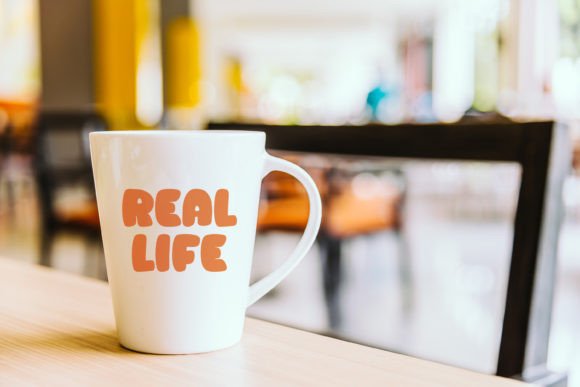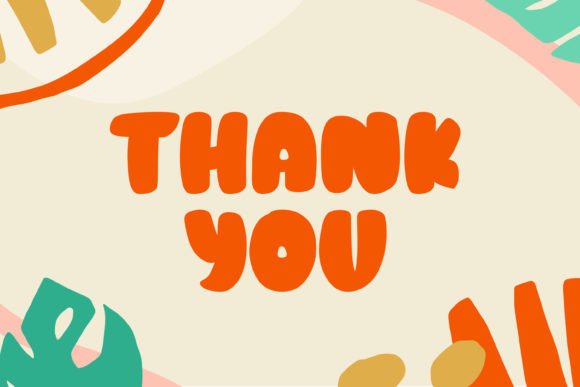
Introduction to Jalessa Font
Have you ever been stuck on a creative project, unable to find the perfect font to bring your idea to life? I know I have – and that’s exactly why I’m excited to share with you the Jalessa Font, a quirky and fun display font that’s sure to add a touch of personality to any design.
Whether you’re working on a high-quality branding project or a simple design for a blog, the Jalessa Font is a valuable resource for designers. Its casual charm makes it easy to read and versatile enough to fit into any creative project. And the best part? It’s available for free download, perfect for those who want to add a professional touch to their designs without breaking the bank.
Key Features of Jalessa Font
- High-quality, elegant font design suitable for creative projects and design resources.
- Features a transparent background, allowing for easy layering and customization.
- Includes a wide range of characters, including uppercase and lowercase letters, numbers, and symbols.
- Designed with a unique, hand-drawn aesthetic that adds a touch of personality to any design.
Honest Review: Jalessa Font
I recently had the chance to work with the Jalessa Font, and I must say it’s been a game-changer for my creative project. The font is available for free download, which is always a plus in my book. I was impressed by its high quality and versatility – it’s perfect for a wide range of design projects.
Here are some things that work well with the Jalessa Font: ✨
- Wide range of weights and styles to choose from
- Transparent background, making it easy to customize and layer with other design elements
- High-resolution glyphs for crisp and clear text
However, I did encounter a few limitations: ⚠️
- The font doesn’t come with a comprehensive character set, which can be a issue for more complex design projects
Overall, I’m really impressed with the Jalessa Font. It’s a solid design resource that’s perfect for creative projects. While it may have a few limitations, its high quality and versatility make it a great choice for designers looking for a reliable font.
Tips for Getting the Most Out of Jalessa Font
Use Jalessa Font to add a touch of elegance to your designs. Experiment with different font sizes and styles to create a unique look. You can also use Jalessa Font in combination with other design elements to create a cohesive and high-quality design.
Jalessa Font is ideal for a variety of creative projects, including business cards, brochures, and presentations. Its high quality and transparent background make it a great choice for designs that require a clean and professional look.